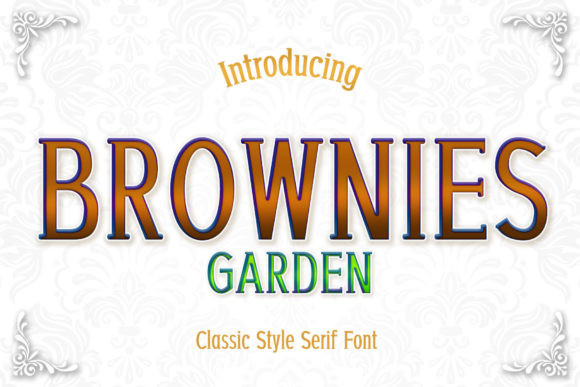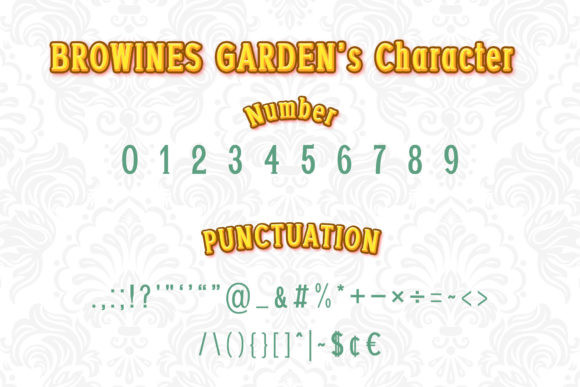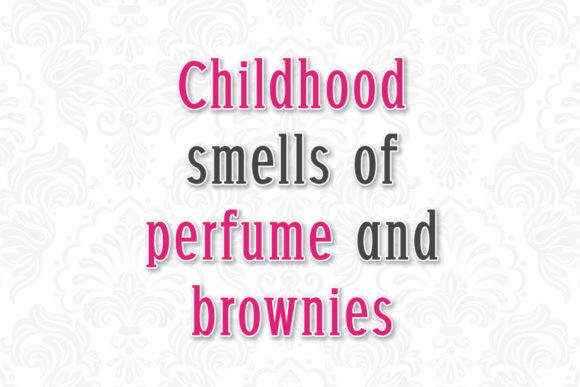
Brownies Garden Font
Brownies Garden is a neat and elegant serif font. It can easily be matched to an incredibly large set of projects, so add it to your creative ideas and notice how it makes them stand out!